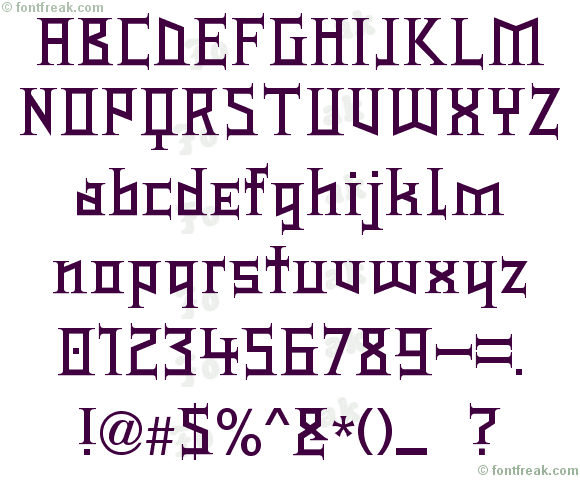
About Type Knight
Type Knight, designed by Levi in 2001, is a striking display font that captures a sense of medieval charm and elegance. This freeware typeface belongs to the decorative category, characterized by its unique serif forms and bold strokes. The font features a moderate stroke weight with varying contrast, enhancing its visual interest while maintaining readability. The spacing is well-balanced, allowing for clear legibility in various applications. Decorative elements, such as distinctive serifs and angular features, lend the Type Knight a regal quality that sets it apart from standard typefaces.
Type Knight is versatile in its applications, making it an excellent choice for a range of creative projects. It shines in use cases such as wedding invitations, where its elegant aesthetic can evoke a sense of romance and grandeur. It is also suitable for movie posters, particularly those within the fantasy or historical genres, where the font's medieval flair can enhance the thematic elements of the design. Additionally, restaurant menus that aim for a rustic or vintage vibe can benefit from the font's unique characteristics, while branding materials for artisanal businesses can effectively convey a sense of craftsmanship and quality.
The target audience for the Type Knight font includes graphic designers looking to add a touch of creativity to their projects, small business owners seeking a distinctive brand identity, and content creators who want to elevate their visual storytelling.
What makes the Type Knight font stand out is its ability to blend traditional aesthetics with modern usability. Its striking design draws attention while remaining functional, making it a valuable addition to any designer's toolkit. For those interested in incorporating this unique typeface into their work, a Type Knight font free download is readily available, ensuring that creativity is accessible to all.